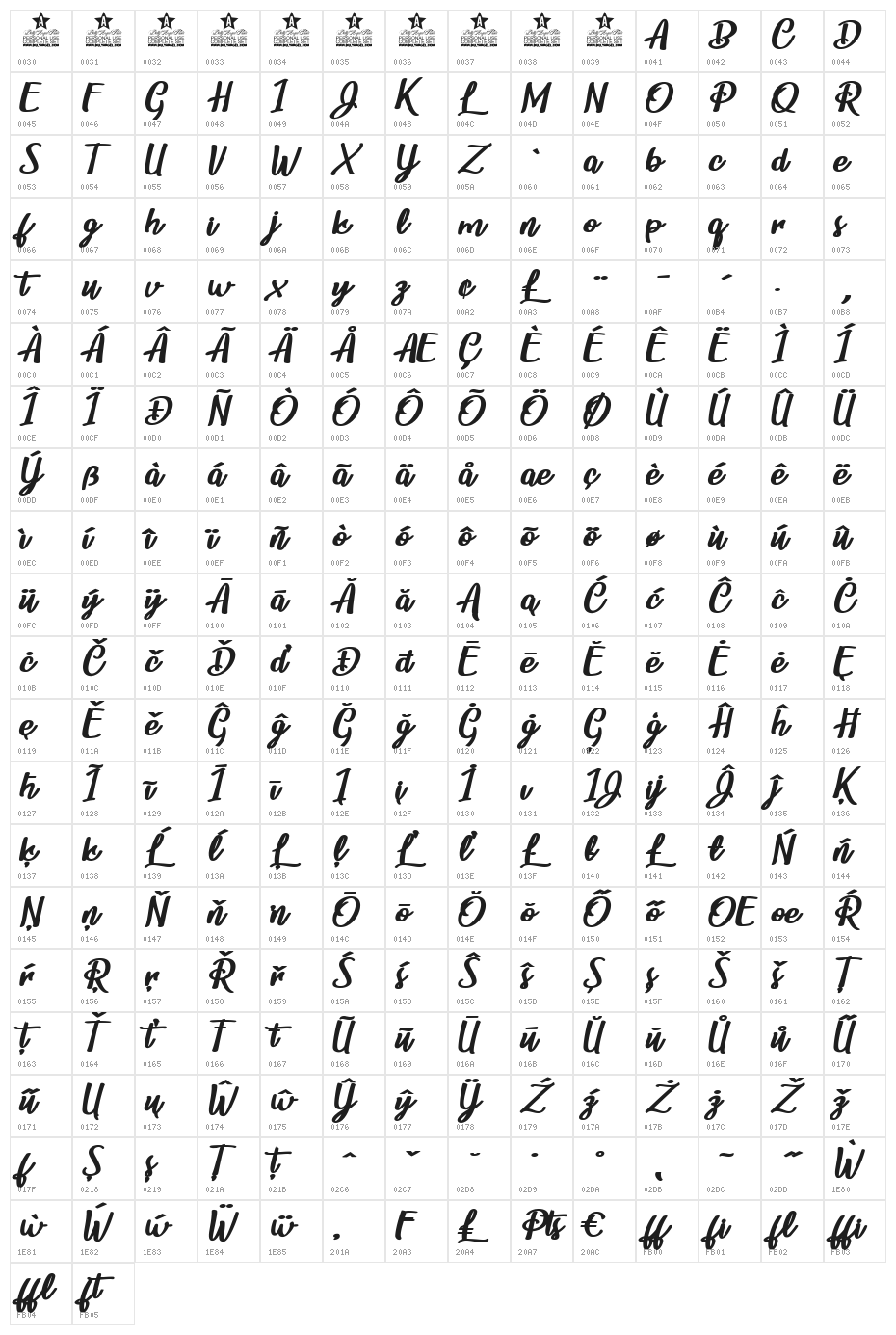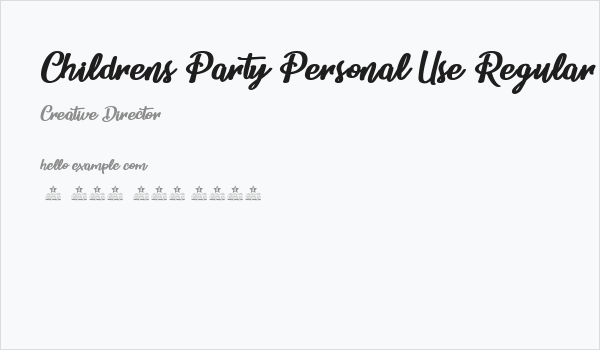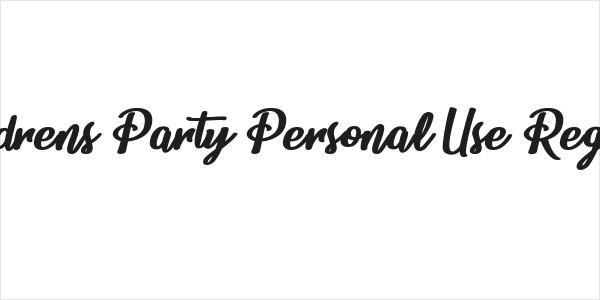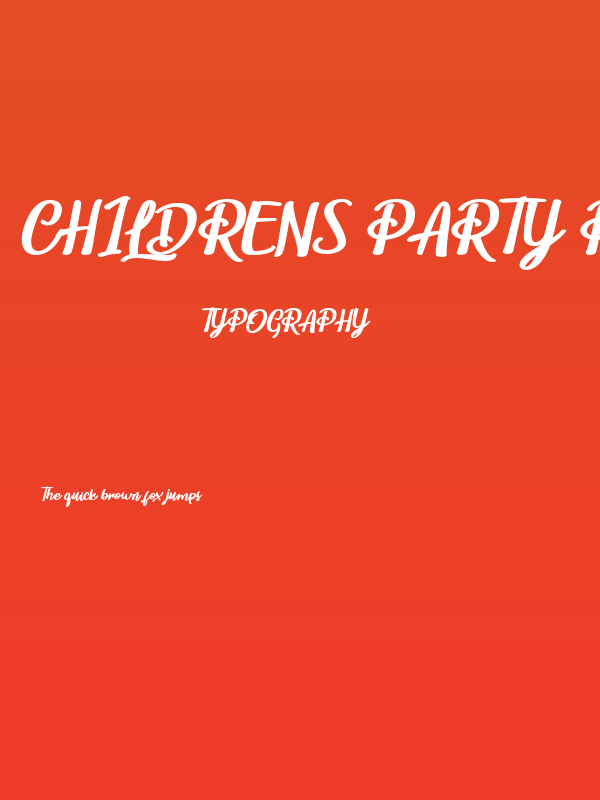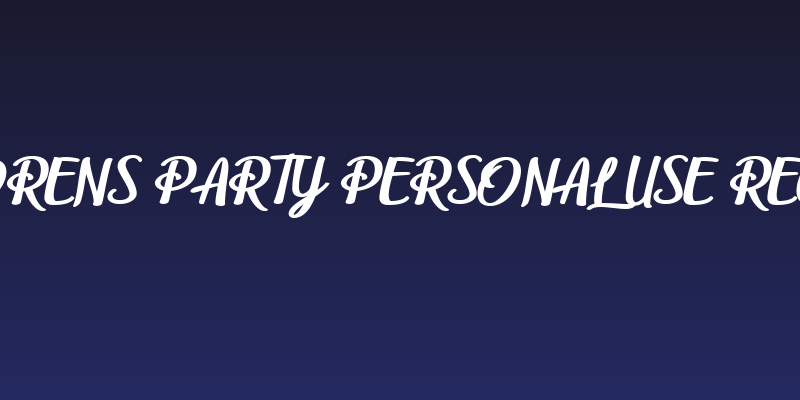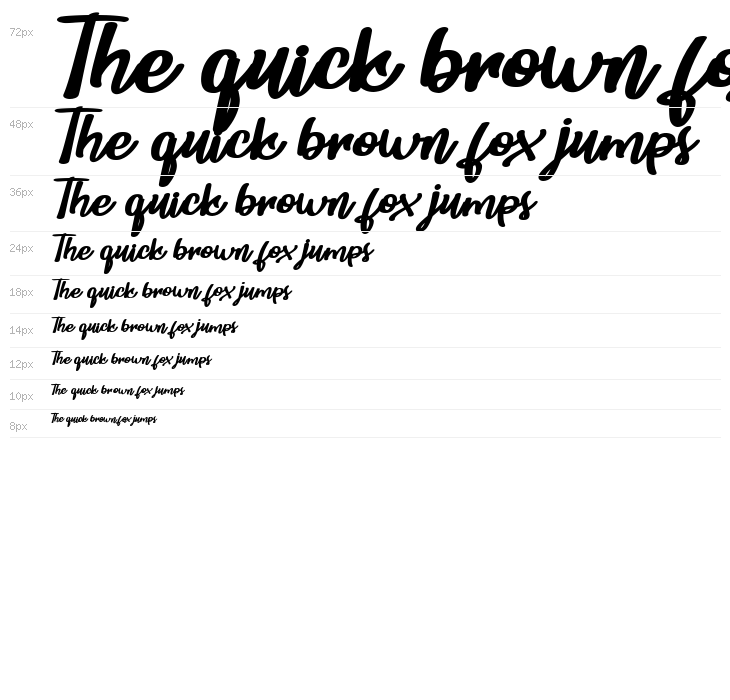
Childrens Party Personal Use Regular Font
Childrens Party Personal Use Regular Description
This playful and energetic font features a bold, script style with a handwritten feel. The letters are connected, giving it a flowing appearance, while maintaining a sense of structure and readability. The uppercase letters are slightly more elaborate, with decorative swirls and loops, while the lowercase letters are simpler and more streamlined. The font exudes a sense of fun and creativity, making it ideal for projects that require a lively and informal touch. The numbers and special characters are consistent with the overall style, ensuring a cohesive look across all text elements.
| Overall Style | Playful, Energetic |
| Proposed Projects | Ideal for children's party invitations, playful branding, greeting cards, and creative posters. |